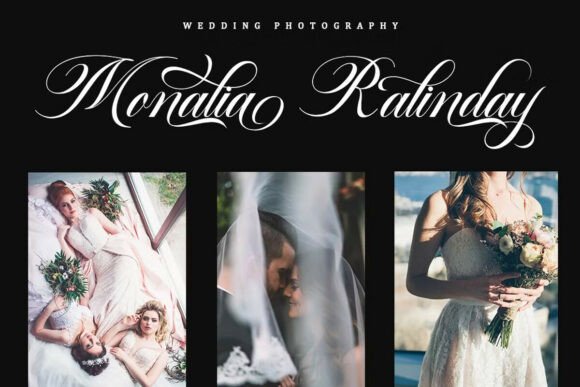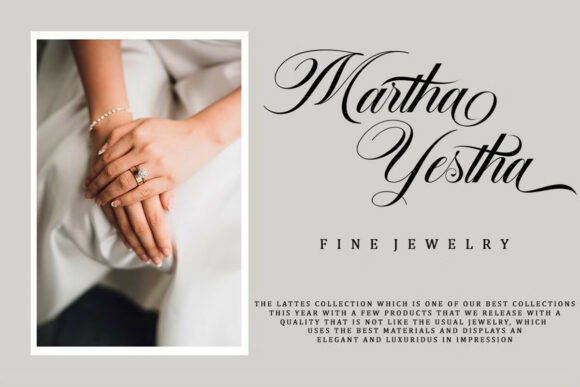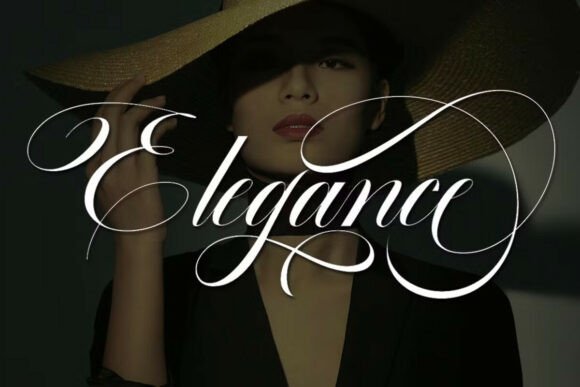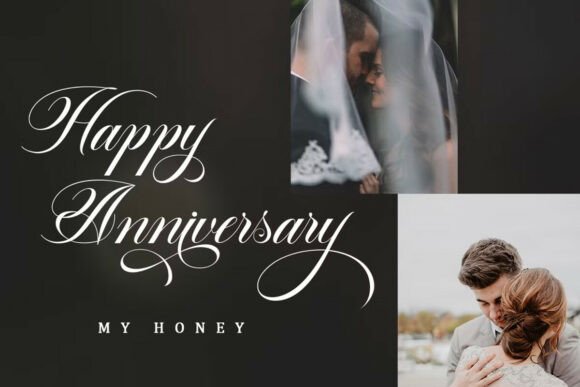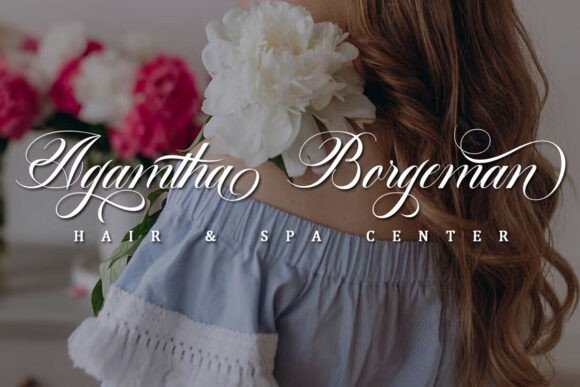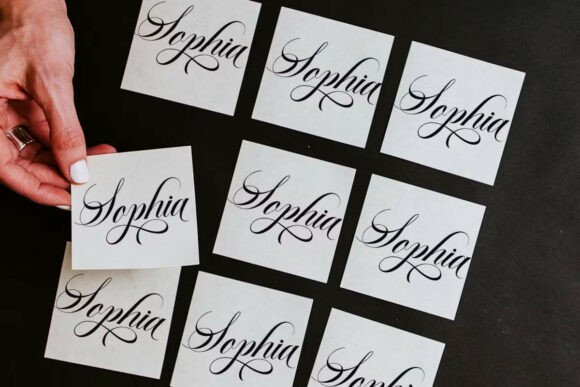
Introducing Bagilan Font: Elevate Your Designs with Elegant Calligraphy
Are you on the hunt for a font that exudes elegance, beauty, and sophistication? Look no further than Bagilan Font, a stunning calligraphy script font designed to take your projects to the next level. With its flowing, handwritten style, Bagilan is the perfect addition to your font library, capable of enhancing any creation with its timeless charm.
What Makes Bagilan Font So Special?
Bagilan Font is meticulously crafted with attention to detail, boasting a neat and elegant appearance that’s sure to captivate your audience. Whether you’re working on a personal project or a professional one, this font’s versatility makes it an excellent choice. Its unique style is both classic and modern, allowing you to create stunning designs that stand out from the crowd.
Key Features of Bagilan Font
- Comprehensive Character Set: Bagilan Font comes with a full set of characters, including:
- Uppercase letters
- Lowercase letters
- Alternative characters
- Ligatures
- Punctuation marks
- Numbers
- Multilingual Support: Create designs in various languages with ease, thanks to Bagilan’s extensive multilingual support.
Endless Design Possibilities with Bagilan Font
One of the standout features of Bagilan Font is its incredible versatility. With a range of alternatives and a beautiful handwritten touch, you can create a wide variety of designs, including:
- Cute and girly handwritten letters
- Elegant invitations and event branding
- Sophisticated logos and business identity
- Stunning social media graphics and posts
- Beautiful packaging and product labels
Why Choose Bagilan Font?
In a world where design trends come and go, Bagilan Font stands out as a timeless and elegant choice. Here are just a few reasons why designers and crafters love Bagilan:
- Elegance: Add a touch of sophistication to your designs with Bagilan’s flowing script.
- Versatility: From cute and playful to elegant and refined, Bagilan adapts to any design style.
Bagilan Font is more than just a font – it’s a design asset that can transform your projects and elevate your brand. With its elegant calligraphy, comprehensive character set, and multilingual support, Bagilan is the perfect choice for designers and crafters looking to add a touch of sophistication to their work. So why wait? Dive into the world of Bagilan Font today and discover the endless possibilities it has to offer!